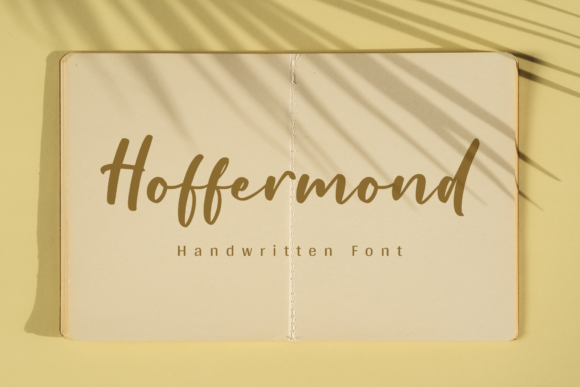
Introducing Hoffermond Font: The Perfect Fusion of Elegance and Expression
Journey into the realm of captivating typography with Hoffermond Font, a modern handwritten font that ignites imagination and adds a touch of personal charm to your creative endeavors. This extraordinary script font, meticulously crafted by hptypework, embodies the spirit of free-flowing ink, transforming words into works of art.
Hoffermond Font is not just a collection of letters; it's an artistic expression that breathes life into your designs. Its graceful curves and elegant strokes evoke a sense of nostalgia, reminiscent of handwritten love letters and vintage posters. Yet, it maintains a contemporary edge, ensuring your designs stay relevant and captivating.
Step into a world of endless creative possibilities with Hoffermond Font. Whether you're designing wedding invitations that exude timeless romance, creating heartfelt greeting cards that warm hearts, or crafting logos that demand attention, Hoffermond Font is your perfect companion. Its versatile nature makes it suitable for a myriad of projects, from eye-catching quotes that inspire to heartfelt journal entries that capture life's precious moments.
With Hoffermond Font, you're not just adding text to your designs; you're infusing them with personality. Its distinct character shines through, adding a touch of sophistication and warmth to every creation. Let your imagination run wild as you explore the boundless possibilities that Hoffermond Font offers.